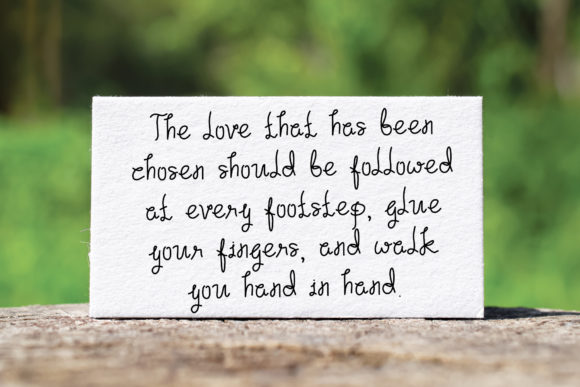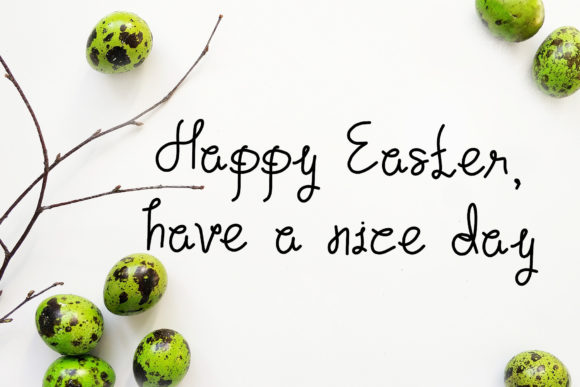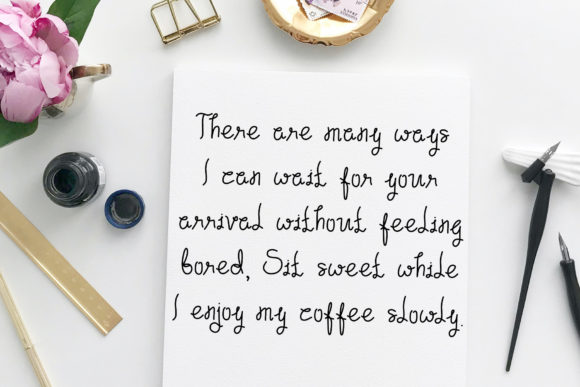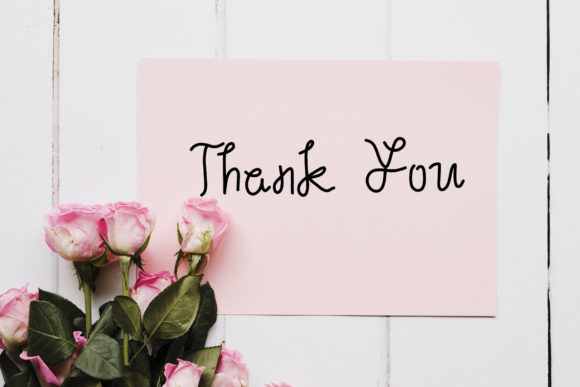
About Brilliant Font
“Brilliant” is a whimsical and refined script font that exudes sophistication and elegance. With its stylish alternates and ligatures, this font offers a range of customization options, making it a perfect match for any project.
The whimsical nature of “Brilliant” adds a touch of playfulness and charm to your designs. Each letter is carefully crafted with attention to detail, resulting in a font that is visually pleasing and balanced. The elegant script style of “Brilliant” brings a sense of sophistication and refinement to your typography.
The font’s stylish alternates and ligatures provide additional creative possibilities. By using these special characters, you can create unique letter combinations, swashes, and flourishes, enhancing the overall appeal and elegance of your designs. Whether you’re designing logos, branding materials, invitations, or other projects, the versatility of “Brilliant” allows it to adapt to different design styles and themes.
The font’s refined script style and whimsical details make it suitable for a variety of projects. It can be used in fashion branding, editorial designs, wedding invitations, stationery, social media posts, and much more. Its versatility allows it to bring a touch of sophistication and elegance to any design.
In summary, “Brilliant” is a whimsical and refined script font that combines sophistication with playful charm. Its stylish alternates and ligatures offer customization options and add to its overall appeal. Whether you’re working on a professional project or a personal design, “Brilliant” is a versatile choice that will enhance the visual impact and elegance of your typography.